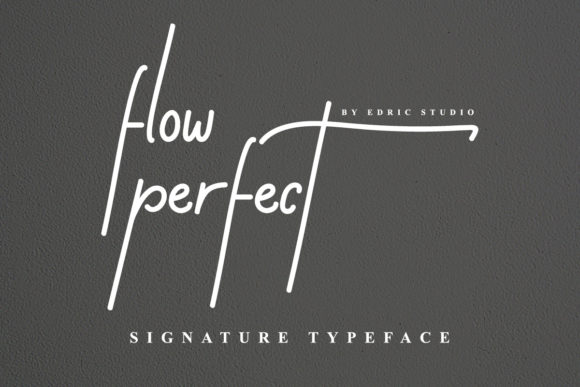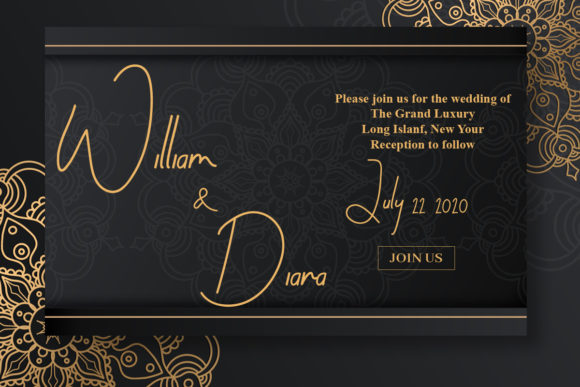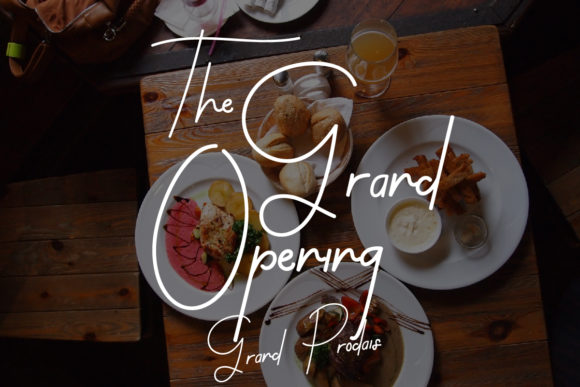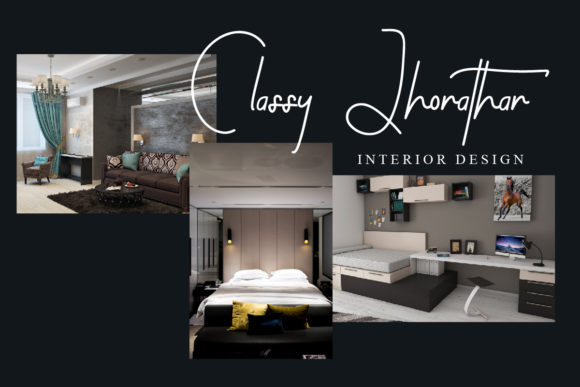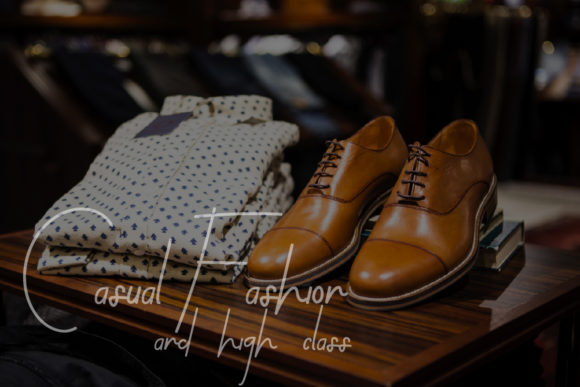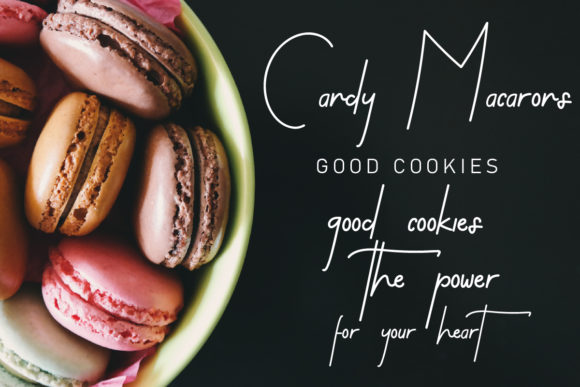
Introducing Flow Perfect Font: Elevate Your Designs with a Unique Handwritten Script
Are you tired of using the same old fonts in your designs? Do you want to add a personal touch to your creations? Look no further than Flow Perfect Font, an exclusive handwritten script typeface that is sure to take your designs to the next level. With its signature style and stunning character set, Flow Perfect is the perfect choice for designers and crafters looking to add a touch of elegance and sophistication to their work.
What Makes Flow Perfect Font So Special?
Flow Perfect Font is a carefully crafted handwritten script typeface that boasts a unique and distinctive style. Each character has been meticulously designed to ensure that the font flows smoothly and consistently, making it perfect for use in a variety of design projects. The font features a beautifully managed character set, with well-spaced and kerned letters that work together in harmony to create a stunning visual effect.
One of the standout features of Flow Perfect Font is its versatility. Whether you’re designing a logo, creating a social media graphic, or crafting a beautiful wedding invitation, this font is sure to impress. Its elegant and refined style makes it perfect for use in a wide range of design projects, from formal and professional to playful and creative.
The Benefits of Using Flow Perfect Font
So why choose Flow Perfect Font for your design projects? Here are just a few of the benefits of using this amazing font:
- Unique and distinctive style: Flow Perfect Font is a one-of-a-kind handwritten script typeface that will set your designs apart from the crowd.
- Elegant and refined: The font’s elegant and refined style makes it perfect for use in formal and professional design projects.
- Versatile: Flow Perfect Font can be used in a wide range of design projects, from logos and social media graphics to wedding invitations and more.
- Easy to read: The font’s carefully managed character set and well-spaced letters make it easy to read, even at small sizes.
How to Use Flow Perfect Font in Your Designs
Using Flow Perfect Font in your designs is easy. Here are a few tips to get you started:
- Pair it with other fonts: Flow Perfect Font pairs beautifully with other fonts, so don’t be afraid to experiment with different combinations.
- Use it for headings and titles: The font’s elegant and refined style makes it perfect for use in headings and titles.
- Add a personal touch: Use Flow Perfect Font to add a personal touch to your designs, such as in a custom logo or social media graphic.
Get Creative with Flow Perfect Font
With Flow Perfect Font, the creative possibilities are endless. Here are a few ideas to get you started:
- Create a beautiful wedding invitation: Use Flow Perfect Font to create a stunning wedding invitation that will set the tone for the big day.
- Design a custom logo: Use the font to create a unique and memorable logo for your business or brand.
- Craft a social media graphic: Use Flow Perfect Font to create a eye-catching social media graphic that will help you stand out from the crowd.
In conclusion, Flow Perfect Font is a unique and versatile handwritten script typeface that is sure to elevate your designs to the next level. With its elegant and refined style, stunning character set, and carefully managed spacing and kerning, this font is perfect for designers and crafters looking to add a touch of sophistication and elegance to their work. So why wait? Get creative with Flow Perfect Font today and see the difference it can make in your designs!